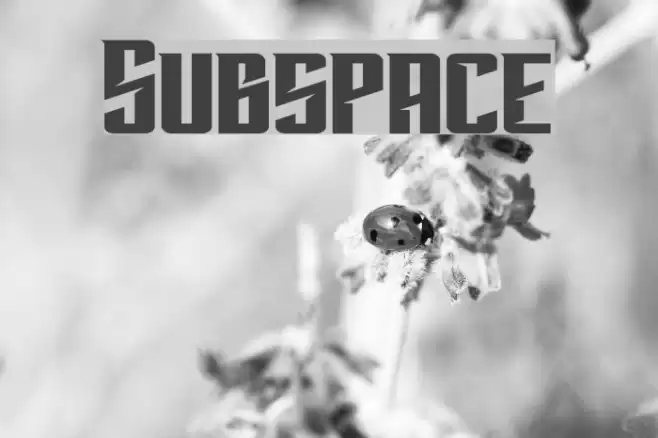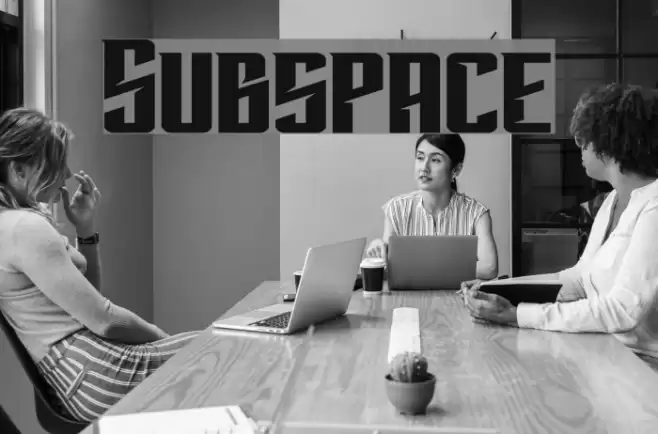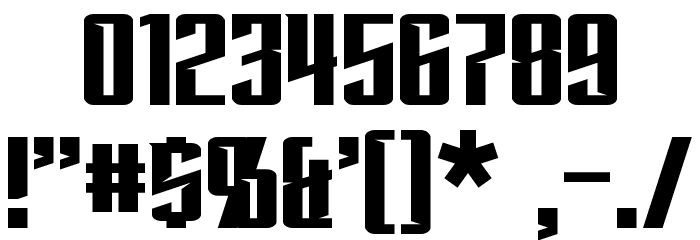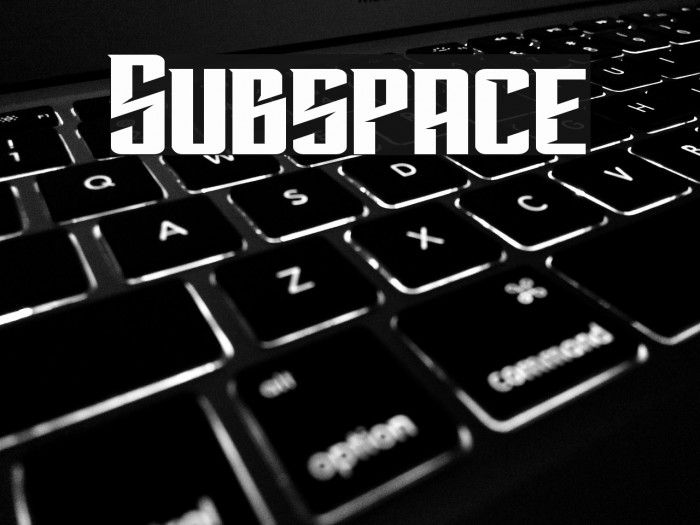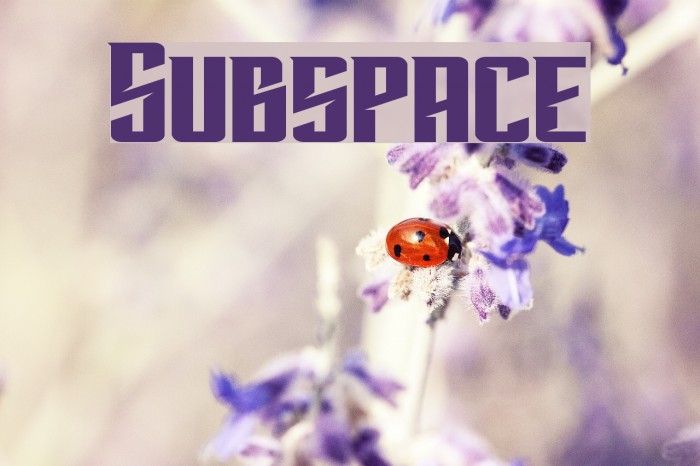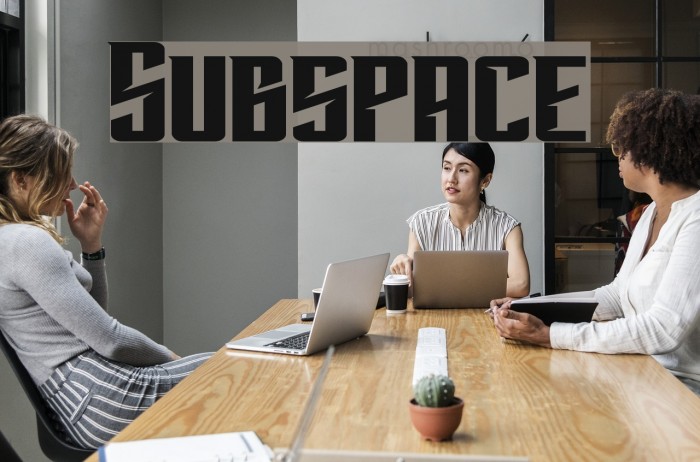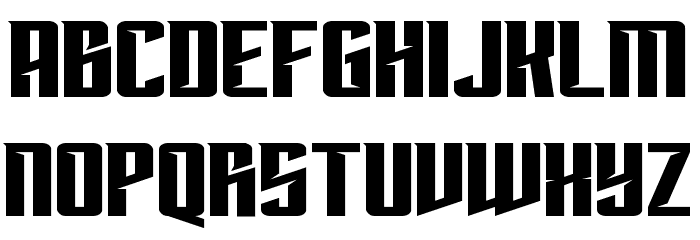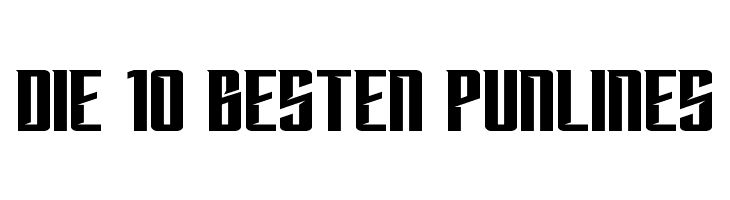
Subspace Font
Subspace Description
This font exhibits a bold and futuristic style with sharp, angular edges and a geometric structure. The uppercase letters are particularly striking, featuring a consistent height and width that gives them a block-like appearance. The lowercase letters maintain the same angular design, ensuring uniformity across the typeface. Numbers and special characters are designed with the same boldness and precision, making them easily legible. The overall aesthetic is modern and dynamic, suitable for projects that require a strong visual impact.
A bold, angular, and futuristic font with a geometric structure from Sci-fi fonts.
- Proposed Projects: Ideal for sci-fi themed designs, video game titles, posters, and branding that requires a modern and impactful look.